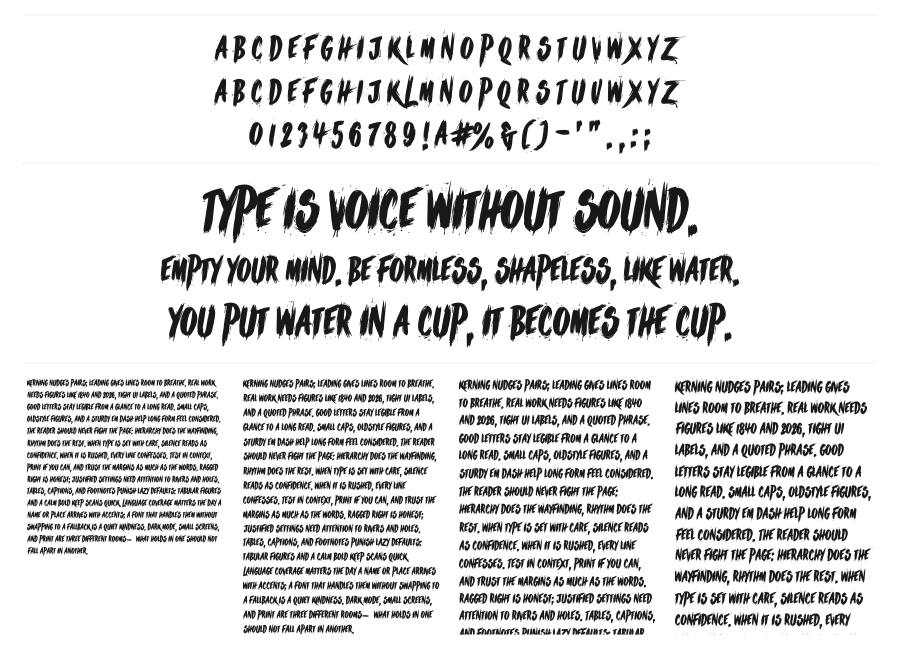
Spirit Fox
Spirit Fox is a heavy brush script with raw, bristle-textured strokes and ink splatter that feels like it was painted fast and hard. The aggressive rightward lean and shredded stroke edges give it an intensity suited to anything that needs to look bold and unrestrained. It thrives at large sizes where the texture detail reads clearly.